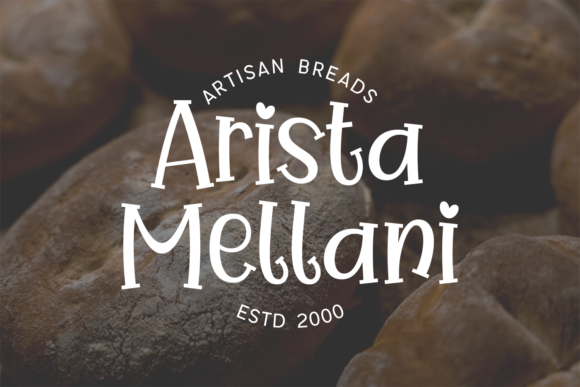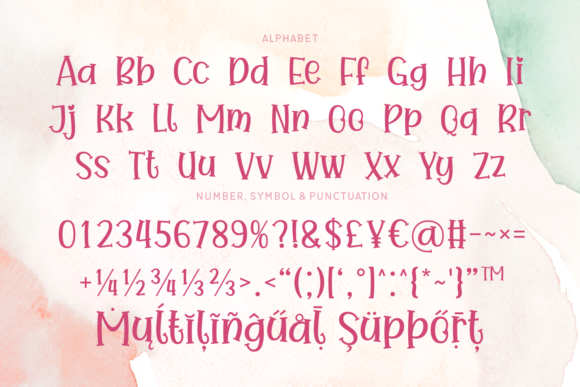
Introduction to Relax It’s Friday Font Font
Fonts play a crucial role in design, and the Relax It’s Friday Font font is a typeface that brings both character and versatility to any project. Whether you’re working on a branding project, a website, or a print design, the Relax It’s Friday Font font offers a unique style that can elevate your work.
| π Font Name | Relax It’s Friday Font |
| π€ Author | Creative Fabrica Fonts |
Relax Itβs Friday is a cute and feminine Display font.
You can see the characters are with a slanted effect This playful serif font is perfect for quotes, children-themed designs, logos, posters, birthday cards, food&drinks menus, etc.
Key Features of Relax It’s Friday Font Font
Why Choose Relax It’s Friday Font Font?
The Relax It’s Friday Font font is more than just a typeface β it’s a design tool that helps you communicate your message with style and clarity. Its unique character set and versatile design make it suitable for a wide range of applications, from elegant invitations to bold headlines.
With its carefully crafted letterforms and balanced proportions, the Relax It’s Friday Font font ensures readability and visual appeal across all mediums.
What makes Relax It’s Friday Font font special?
The Relax It’s Friday Font font stands out with its unique design, exceptional readability, and versatility across various design applications.